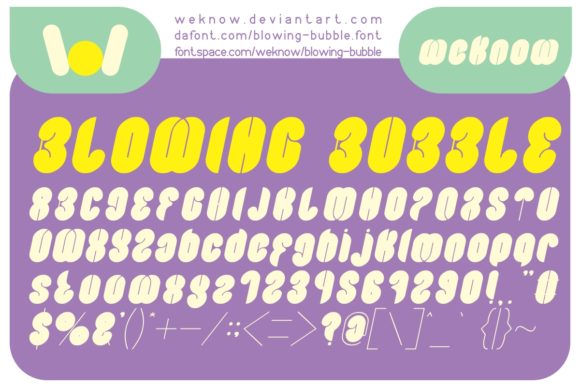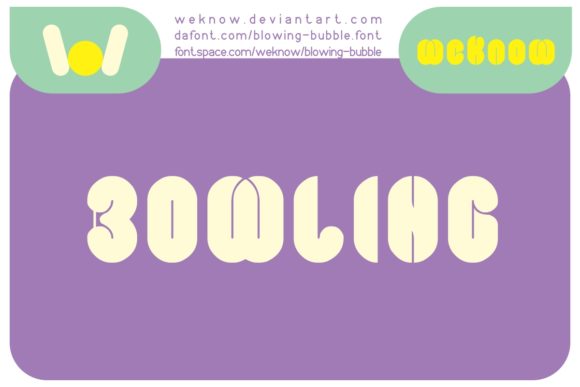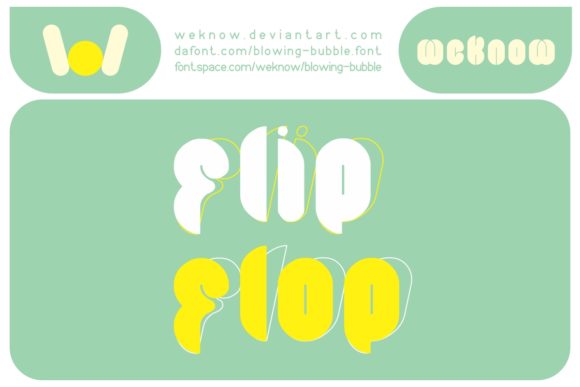
Get Ready to Pop with the Sweetest Font Around!
Who among us hasn’t, at some point, been inspired by the simplest things in life? A burst of colorful bubblegum, a lollipop on a summer day, or the sound of a child blowing bubbles on a sidewalk. These tiny moments of joy often spark the most creative ideas, and for designers, they can be the catalyst for something truly special.
Enter the Blowing Bubble Font, a display font that captures the whimsy and playfulness of life’s sweeter moments. Designed to add a touch of fun and personality to any project, this font is perfect for designers looking to add a little extra oomph to their designs. Whether you’re working on a packaging project for a candy store or creating a social media campaign for a gum brand, the Blowing Bubble Font is the perfect choice.
Key Features of “Blowing Bubble Font”
- Unique Characteristics: The “Blowing Bubble Font” features a unique, hand-drawn design with organic, playful lines that evoke a sense of whimsy and fun.
Blowing Bubble Font Review
Overall, I think “Blowing Bubble Font” is a fun, playful font that could work well for certain projects. ✨ Here are some things that I think it does well:
- It’s perfect for creating a whimsical or childlike atmosphere.
- The bubble effect is well-executed and adds a nice texture to the font.
- It’s a great choice for titles or headings where you want to add some visual interest.
However, there are also some limitations to consider: ⚠️
- The font may not be suitable for large blocks of text, as the bubble effect can become overwhelming.
- It may not be the best choice for formal or professional projects.
- The font can be a bit tricky to read at smaller sizes, so be sure to test it out at different scales.
Overall, I think “Blowing Bubble Font” is a solid choice for projects where you want to add a playful touch. Just be mindful of the limitations and use it judiciously.
The Blowing Bubble Font is ideal for creating playful and whimsical designs, such as children’s party invitations, greeting cards, and social media graphics. It’s also great for adding a touch of fun to corporate branding and marketing materials.
To get the most out of the Blowing Bubble Font, experiment with different font sizes, colors, and styles to create a unique look. Combine it with other playful fonts and graphics to add visual interest to your designs.